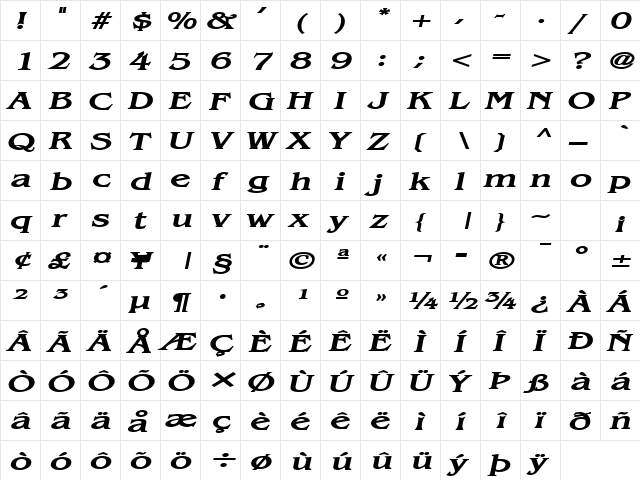
Bangle Extended BoldItalic
Design Context for Bangle Extended Typeface
Bangle Extended is a composed and adaptable typeface that performs quietly and consistently across a wide range of design contexts. The dynamic lean of this cut emphasises speed and emphasis in any layout. Its bold stroke weight gives it real presence on the page.
Pro Tip: Use Bangle Extended for emphasis, pull quotes, and subheadings where its slanted energy can add rhythm to the layout.